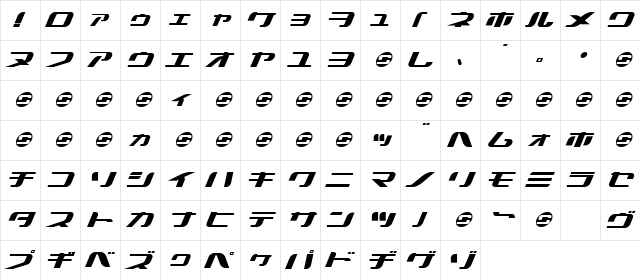
SUMMERCAMPKaSha Regular Font Preview
SUMMERCAMPKaSha Regular
SUMMERCAMPKaSha Regular Font Details
Design Context for SUMMERCAMPKaSha Typeface
SUMMERCAMPKaSha offers clean, dependable letterforms without strong stylistic allegiance, making it a practical choice for designers who need flexibility.